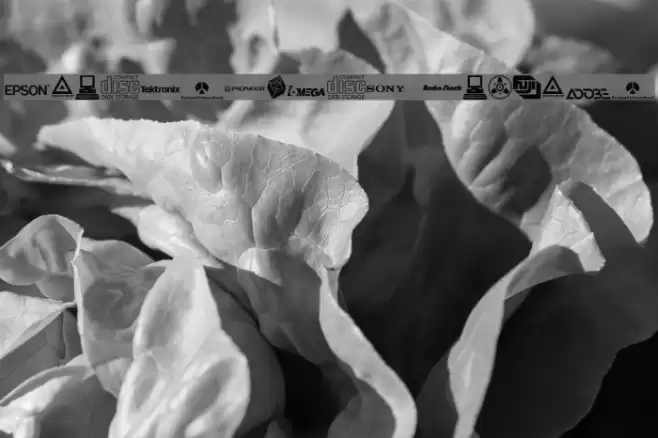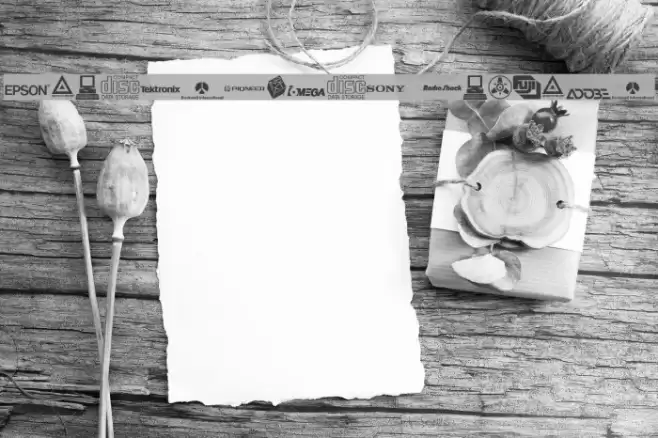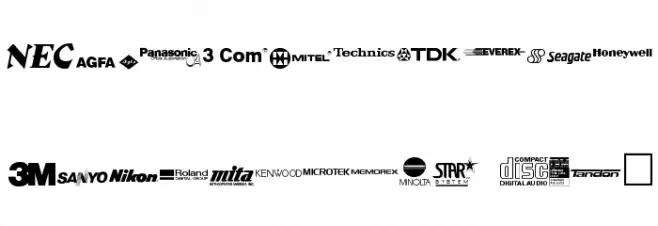
Electronics Regular Font
Electronics Regular Description
This image features a collection of logos from various electronics and technology companies. Each logo is distinct, showcasing a variety of design styles ranging from bold and modern to classic and understated. The logos utilize different font styles, including serif, sans-serif, and decorative elements, reflecting the unique brand identity of each company. The image serves as a visual representation of branding in the electronics industry, highlighting the diversity in typography and design choices that companies use to convey their brand message.
A diverse collection of electronics company logos showcasing varied typography styles from Images & Symbols fonts.